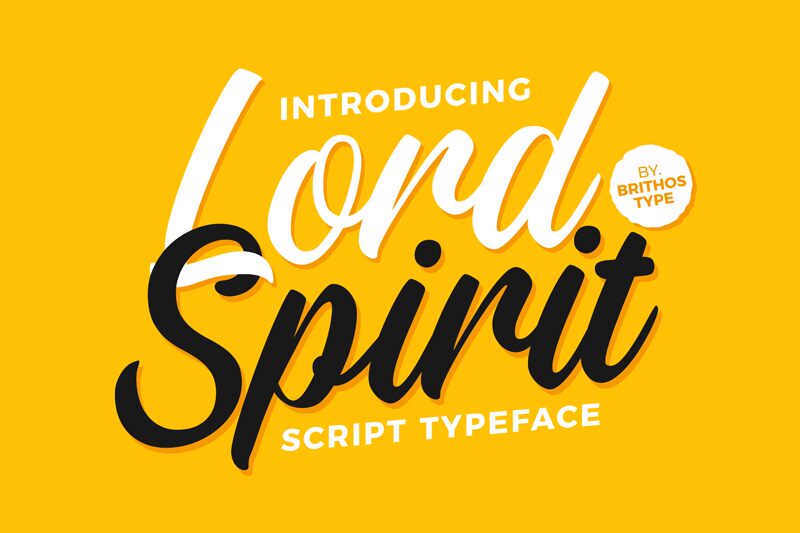
Lord Spirit Regular
Lord Spirit, crafted by Brithos Type, exudes a personal touch with its handwritten style that resonates with the charm of an artist's fluid stroke. The font's casual elegance is highlighted by its sweeping curves and playful loops, giving it a dynamic yet sophisticated demeanor. With a nod to traditional calligraphy, Lord Spirit imbues designs with warmth and character that digitally typeset fonts often lack.
This font finds its niche in projects that demand an intimate and bespoke feel. It shines in branding for artisanal products, wedding invitations, and creative editorial work where personality is paramount. Its distinctive form lends itself beautifully to quotes that call for visual impact or any context where the human element should be at the forefront. Lord Spirit bridges the gap between classic penmanship and contemporary design needs with grace and flair.